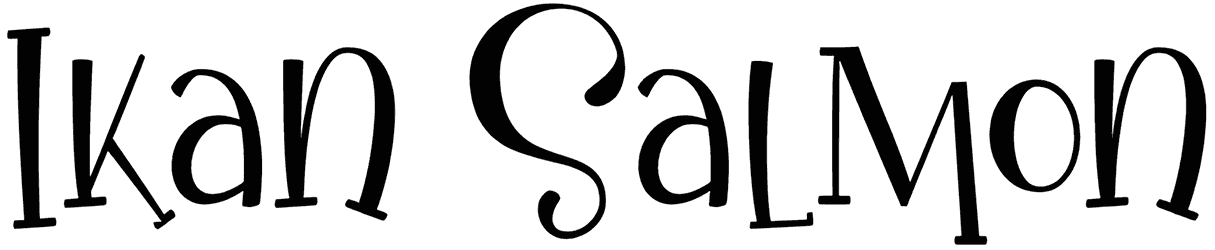
Ikan Salmon Font
Ikan Salmon is a playful cartoon font whose characters are designed in three distinctive styles and allow you to add a bit of diversity to all of your creative ideas, including animation posters, stickers, illustrations,…
Ikan Salmon is a playful cartoon font whose characters are designed in three distinctive styles and allow you to add a bit of diversity to all of your creative ideas, including animation posters, stickers, illustrations, or social media posts. Since it comes with rounded and angular characters, it can lead to a vibe of dynamic, childishness, viability, or jauntiness.